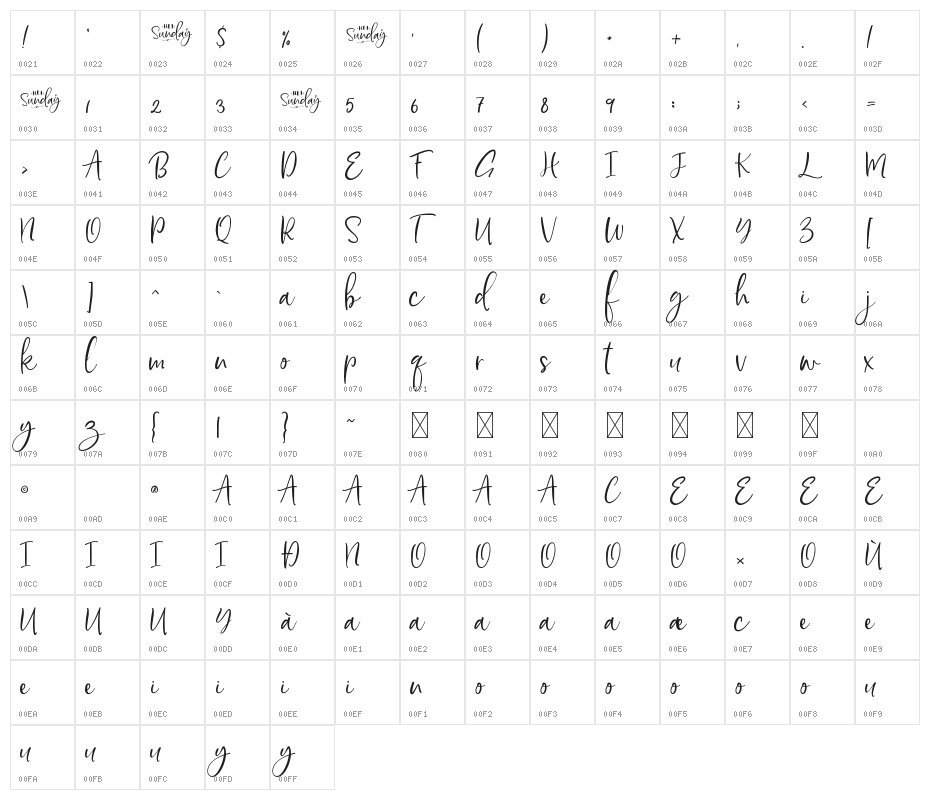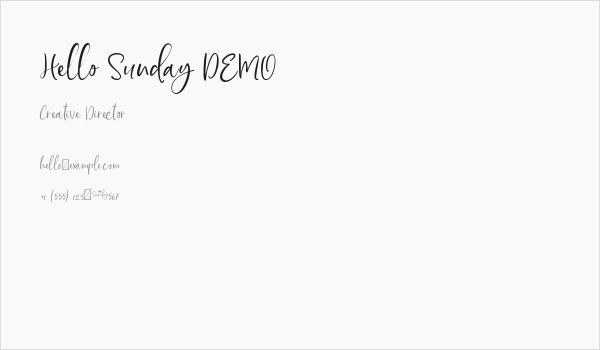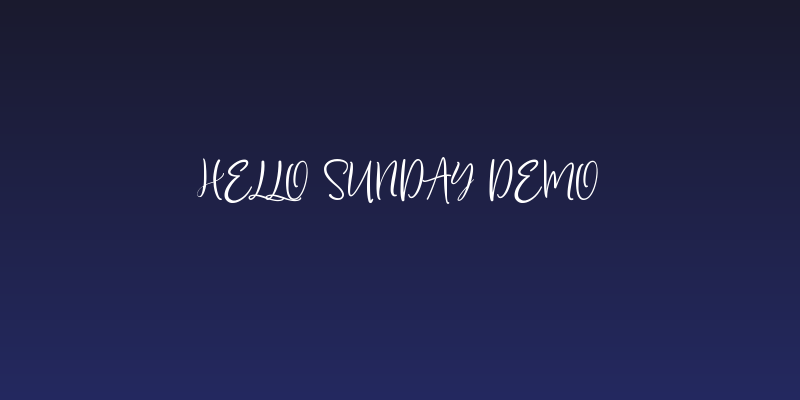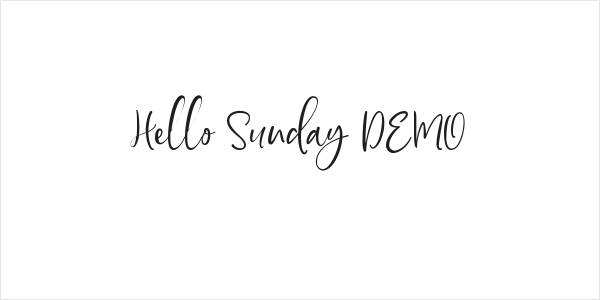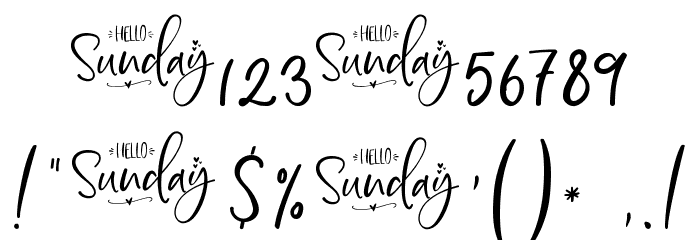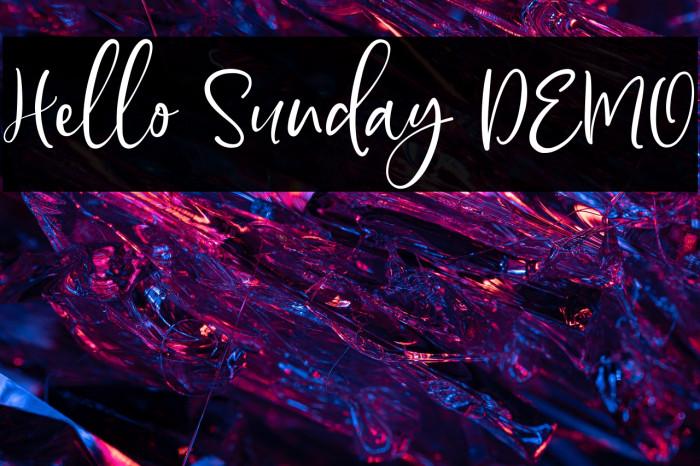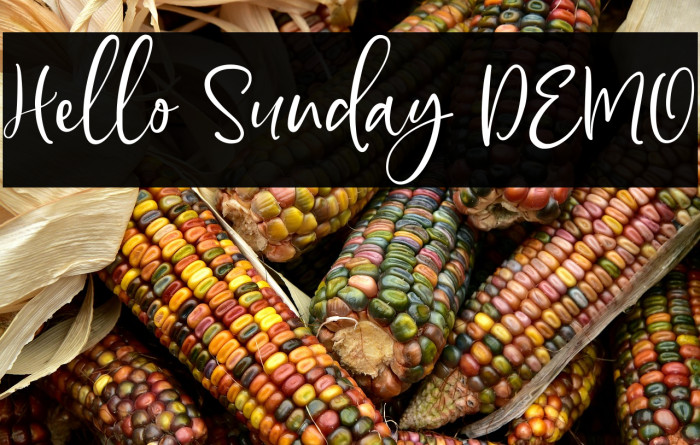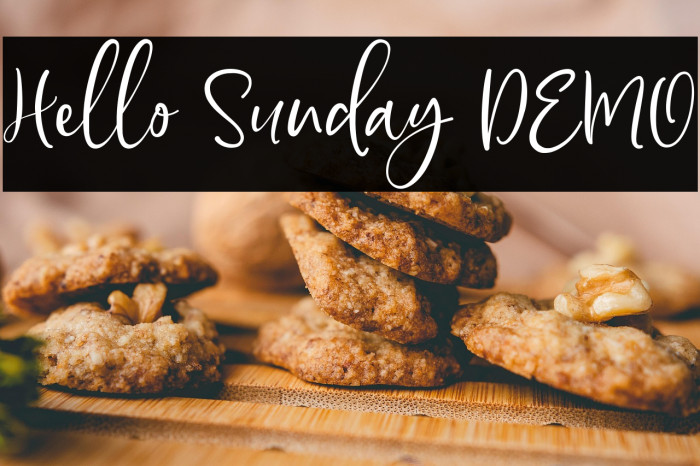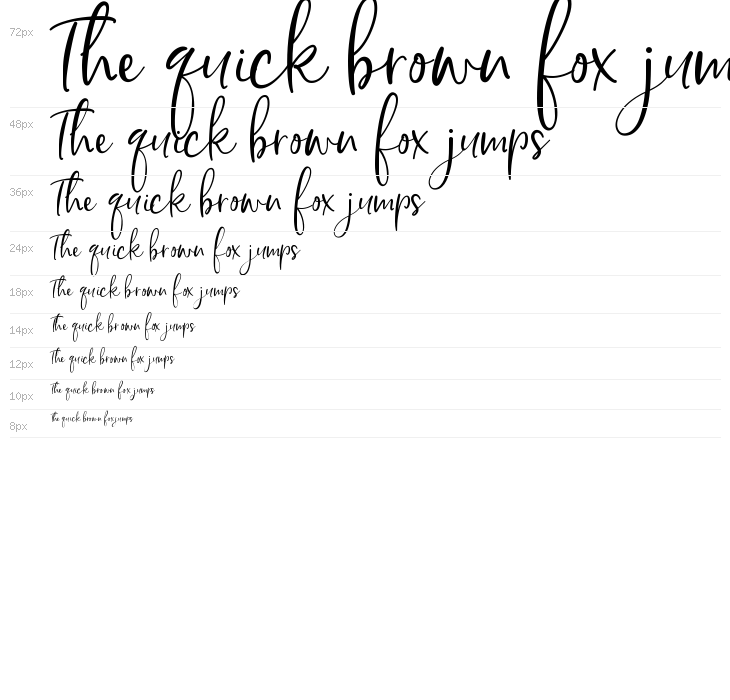
Hello Sunday DEMO Font
Hello Sunday DEMO Description
This font exudes a playful and elegant handwritten style, characterized by its flowing, cursive script. The letters are interconnected with smooth, sweeping strokes that give it a lively and dynamic appearance. The uppercase letters are tall and slender, while the lowercase letters maintain a consistent rhythm with slightly exaggerated loops and curves. The numbers and special characters are crafted with the same fluidity, ensuring a cohesive look across all elements. This font's whimsical nature is perfect for adding a personal touch to any design, making it ideal for projects that require a sense of warmth and creativity.